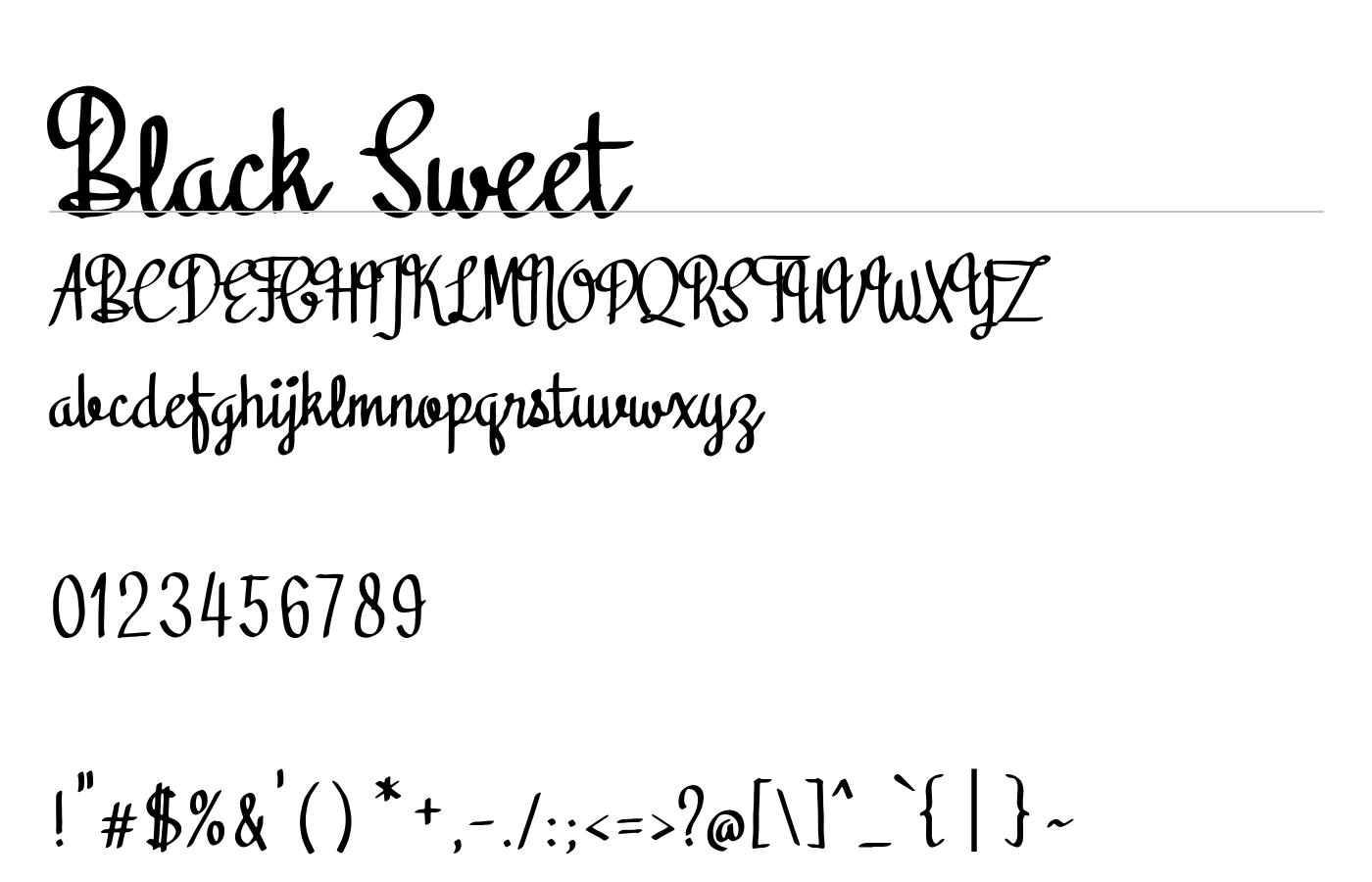
Black Sweet is a playful and elegant handwritten script font with tall, narrow letterforms and a smooth, flowing style. Its light strokes and whimsical details give it a friendly and charming personality, making it perfect for creative projects, invitations, and branding that seek a personal, artistic touch. This font works well in headlines and display uses where a unique, approachable vibe is desired.
Black Sweet Font
About Black Sweet Font
| Designer | @faldykudo |